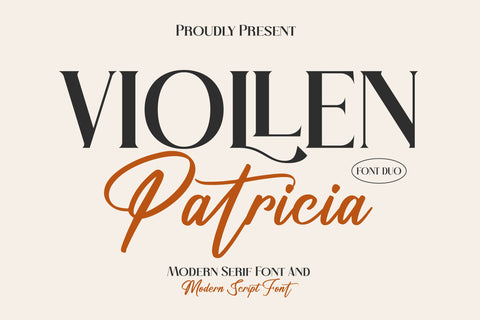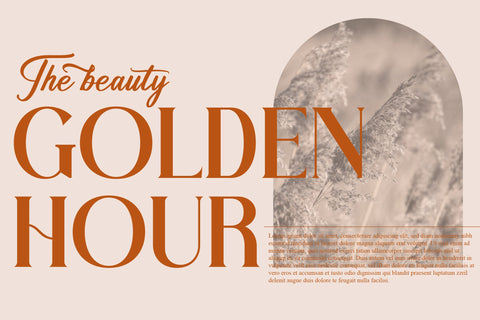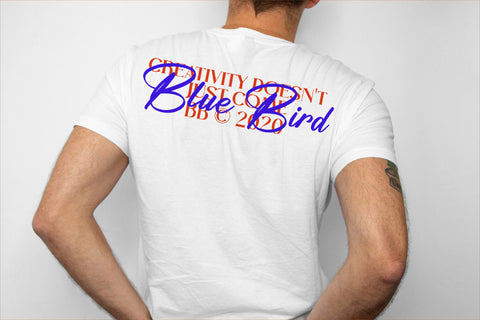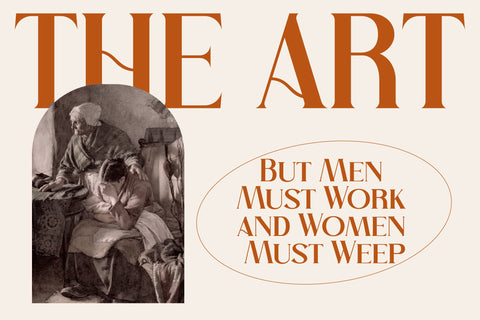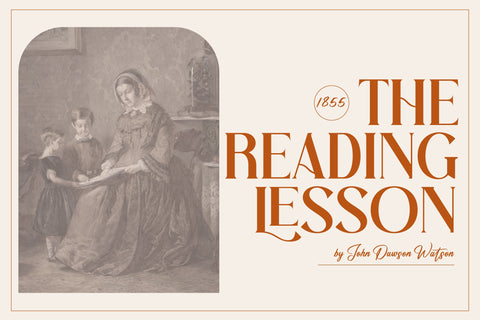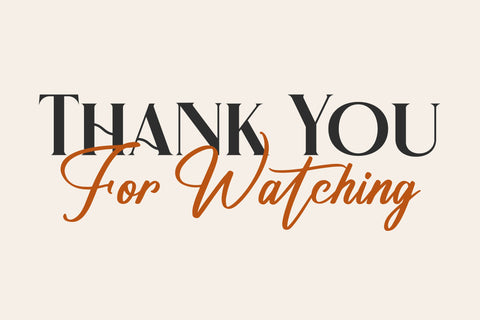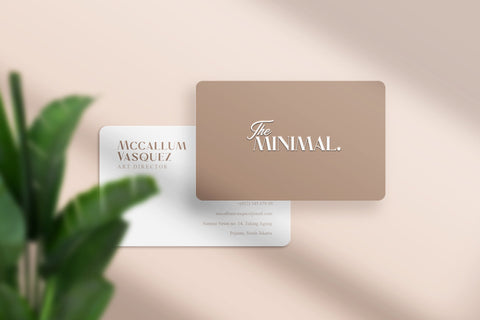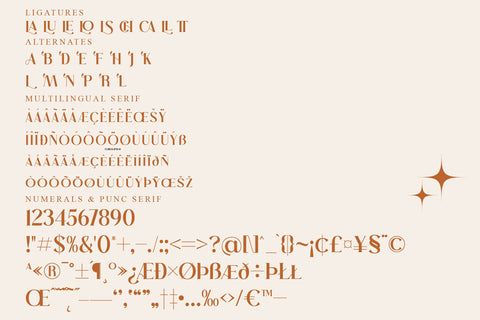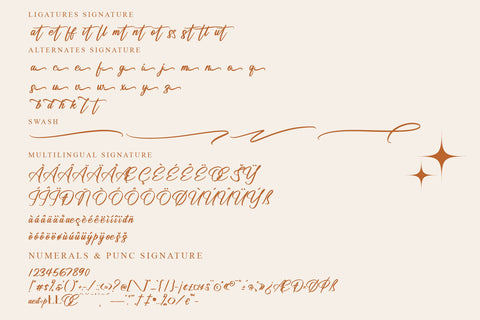
VIOLLEN Patricia Typeface
Proudly present VIOLLEN Patricia Typeface, created by Storytype,
This typeface is perfect for an elegant & luxury logo, book or movie title design, fashion brand,
magazine, clothes, lettering, quotes, and so much more.